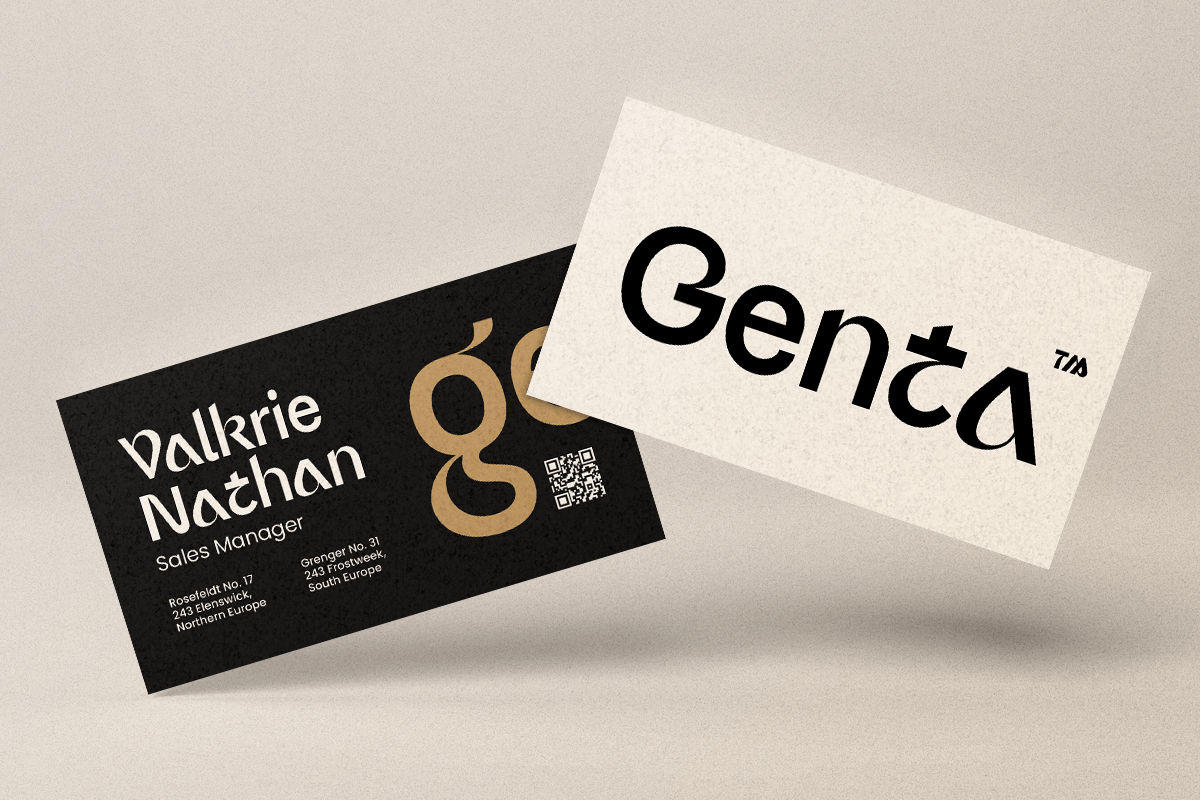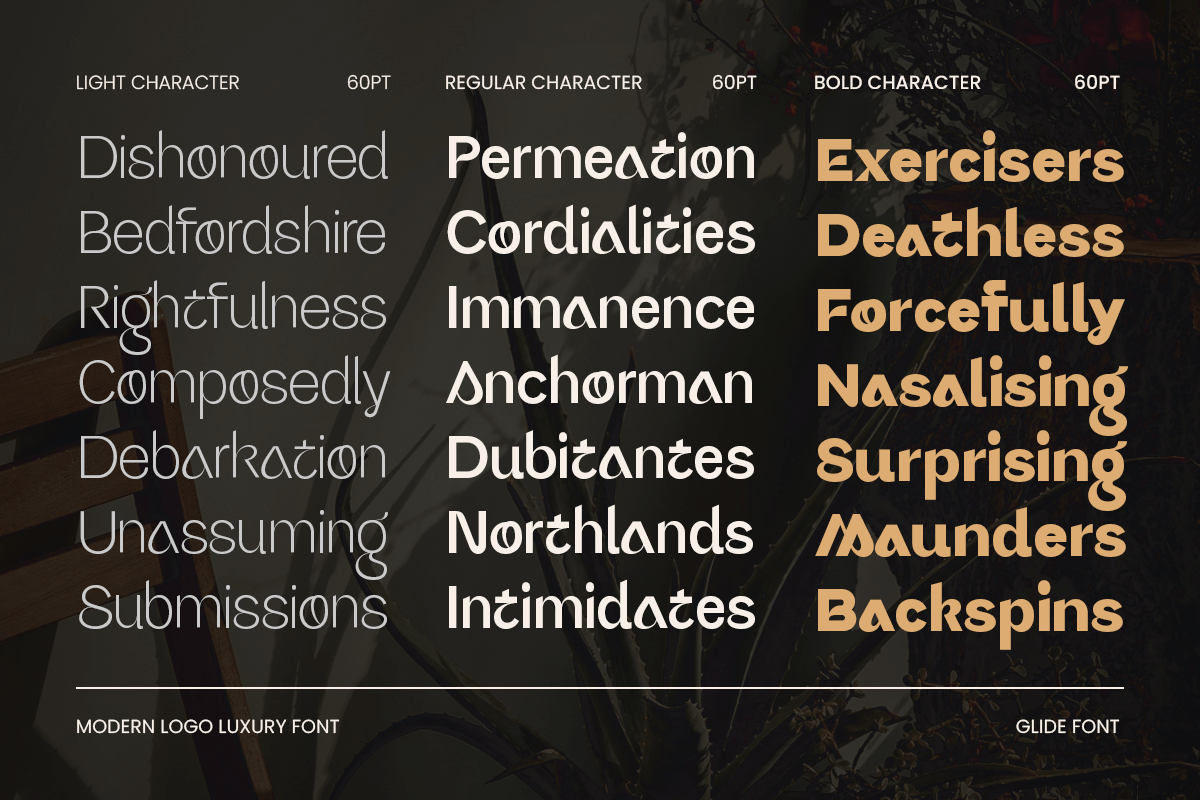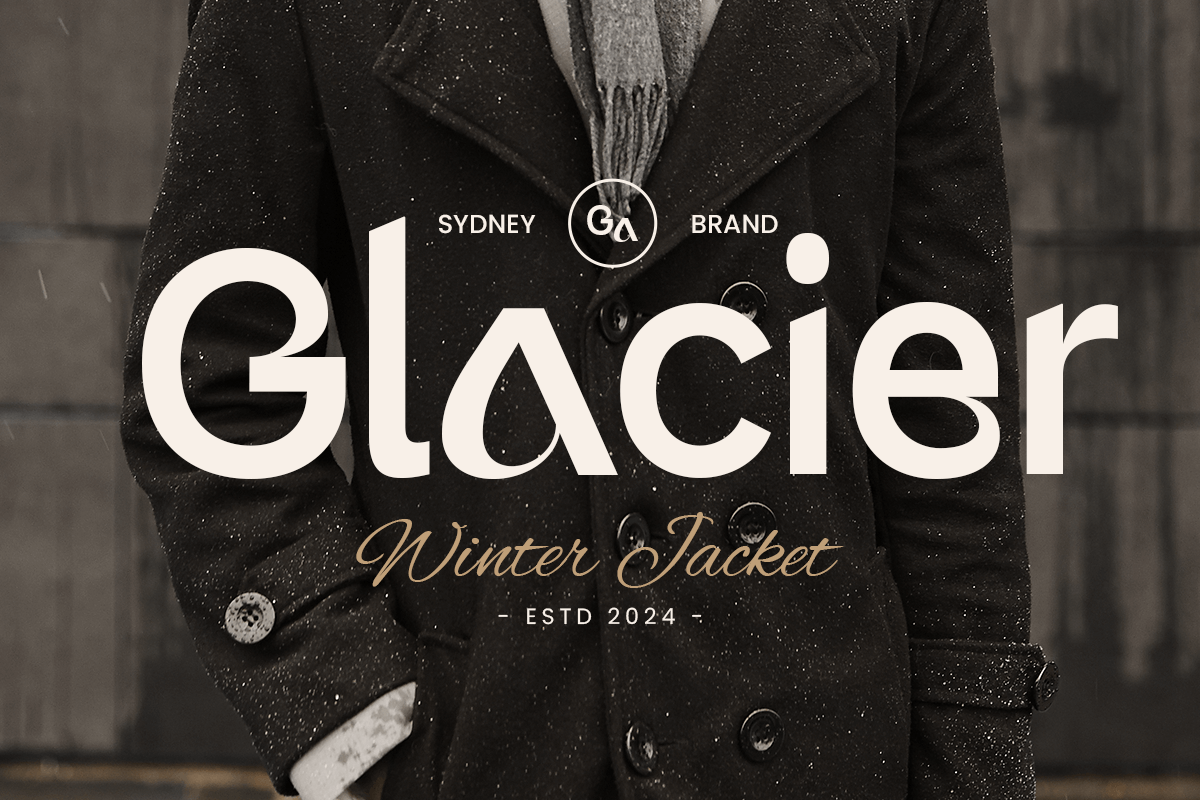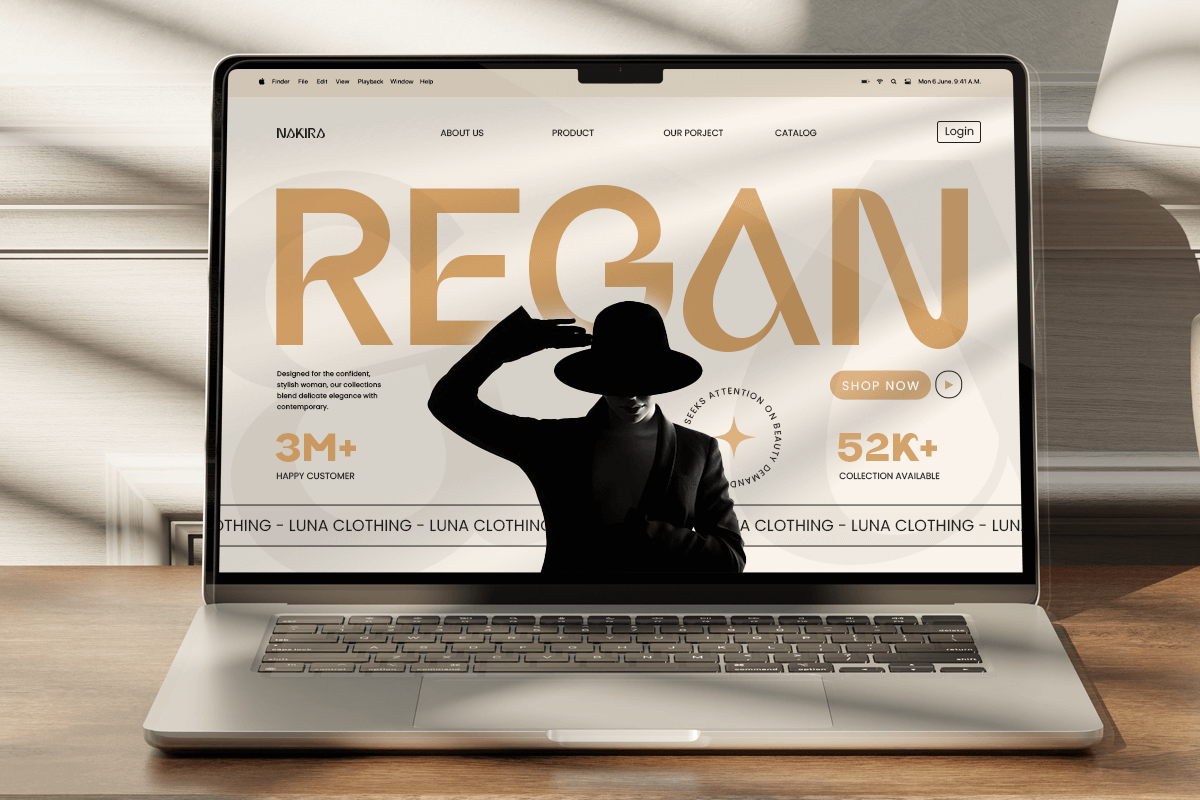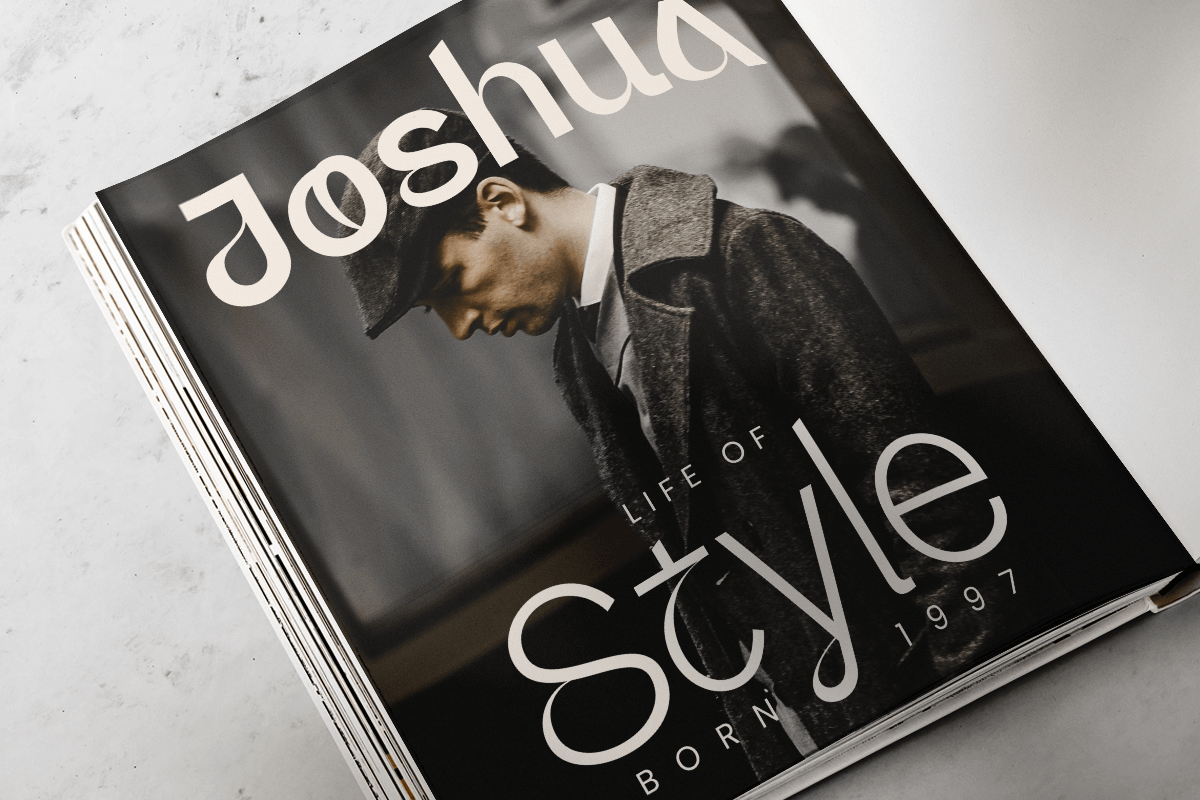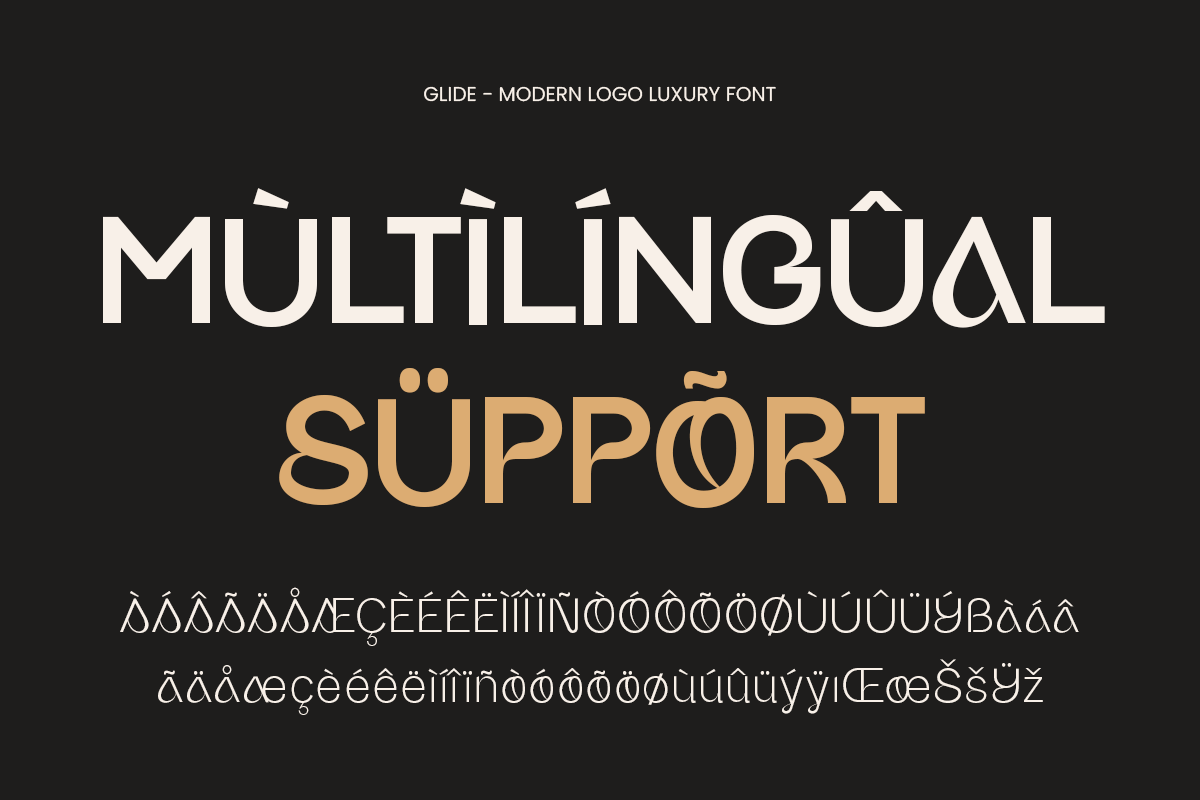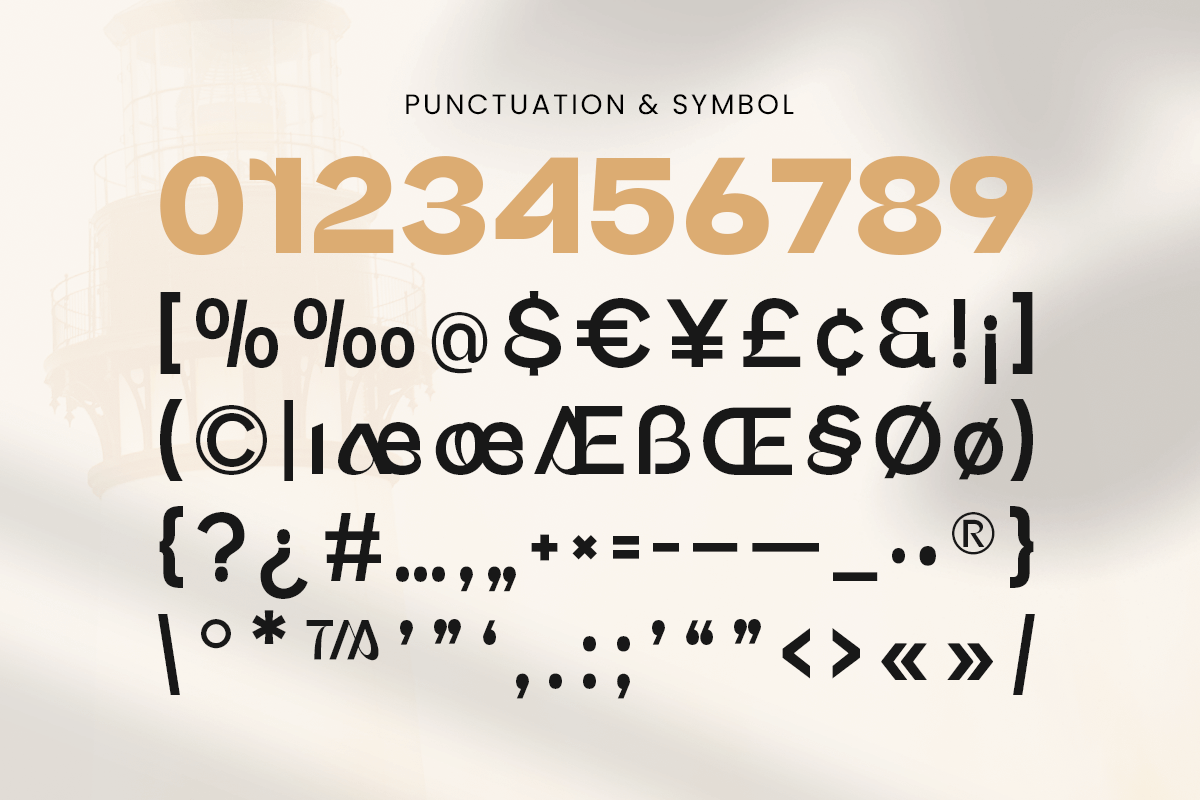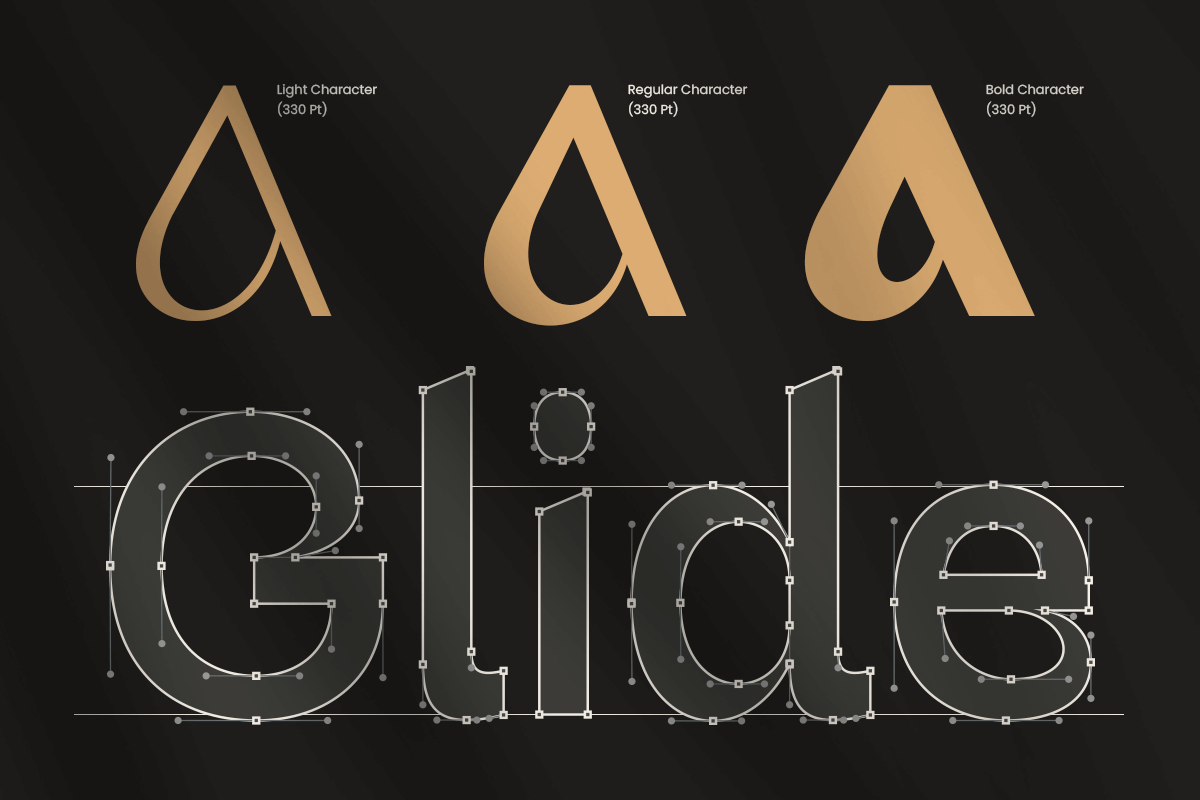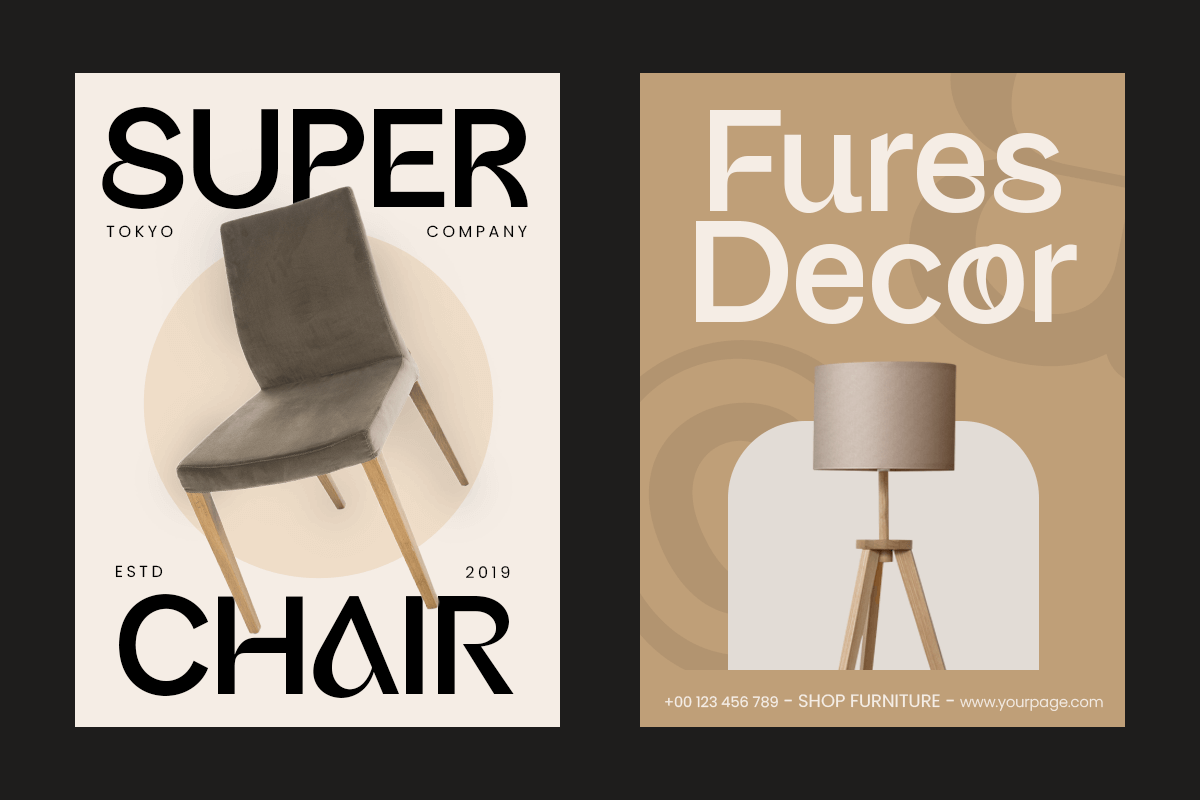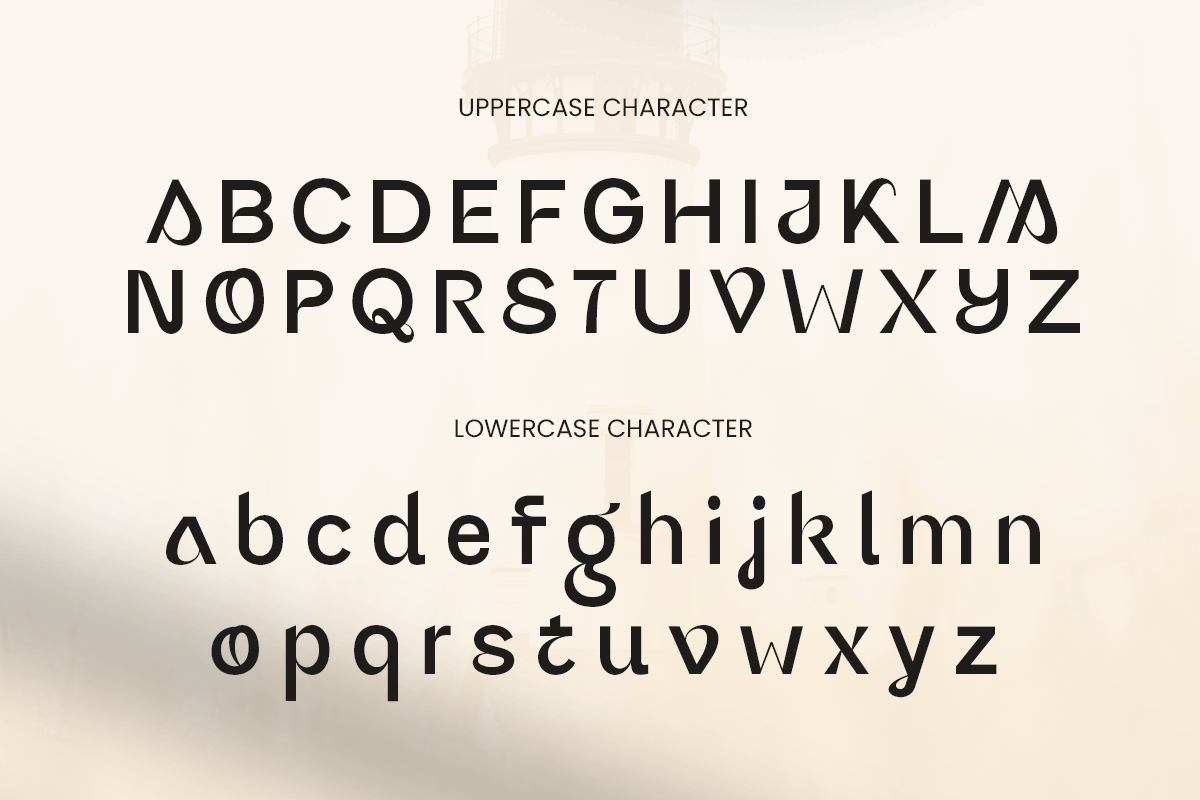
Glide - Modern Logo Luxury Font
Glide is a modern logo luxury font designed to bring elegance, sophistication, and clarity to your branding projects. Its sleek, refined letterforms make it ideal for logos, corporate identity, premium packaging, and stylish editorial layouts.
Whether you’re designing for fashion, lifestyle, tech, or high-end brands, Glide delivers a contemporary, professional look that elevates your projects with subtle sophistication. Its modern design ensures versatility for both digital and print applications.
Glide – Modern Logo Luxury Font Features
Sleek and modern letterforms ideal for luxury branding
Elegant and professional style for premium designs
Includes uppercase, lowercase, numerals, and punctuation
Versatile style suitable for digital and print projects
OpenType features for enhanced typographic control
Multilingual support for Afrikaans, Albanian, Asu, Basque, Bemba, Bena, Breton, Chiga, Cornish, Dutch, English, Estonian, Filipino, Finnish, Friulian, Galician, German, Gusii, Indonesian, Irish, Italian, Kabuverdianu, Kalenjin, Kinyarwanda, Luo, Luxembourgish, Luyia, Machame, Makhuwa-Meetto, Makonde, Malagasy, Manx, Morisyen, North Ndebele, Nyankole, Oromo, Portuguese, Quechua, Romansh, Rombo, Rundi, Rwa, Samburu, Sango, Sangu, Scottish Gaelic, Sena, Shambala, Shona, Soga, Somali, Spanish, Swahili, Swedish, Swiss, and more.
Elevate your brand with Glide – the perfect modern luxury font for stylish logos and premium designs. ✨🖋️